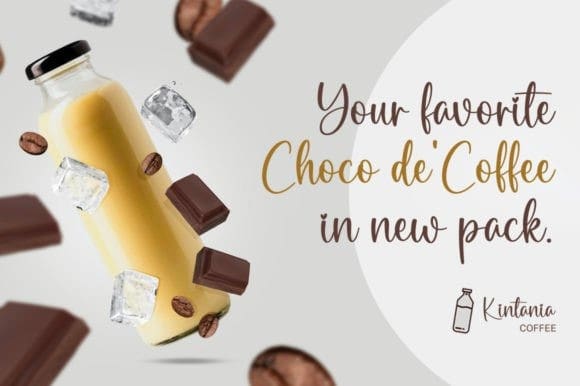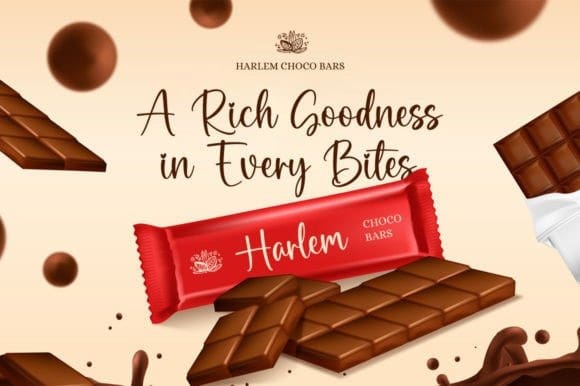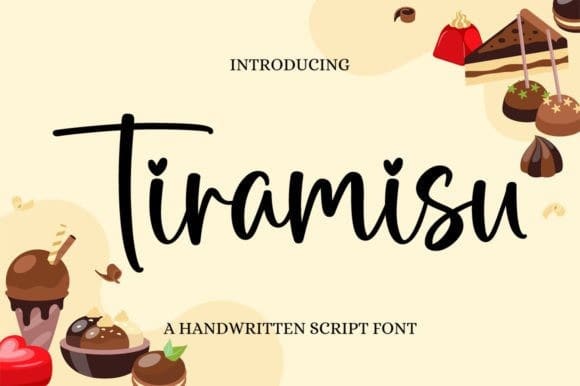
Tiramisu Script Font
Tiramisu Script Font, is a delicate, elegant, and flowing handwritten font. It has beautiful and well-balanced characters and as a result, it matches a wide pool of designs.